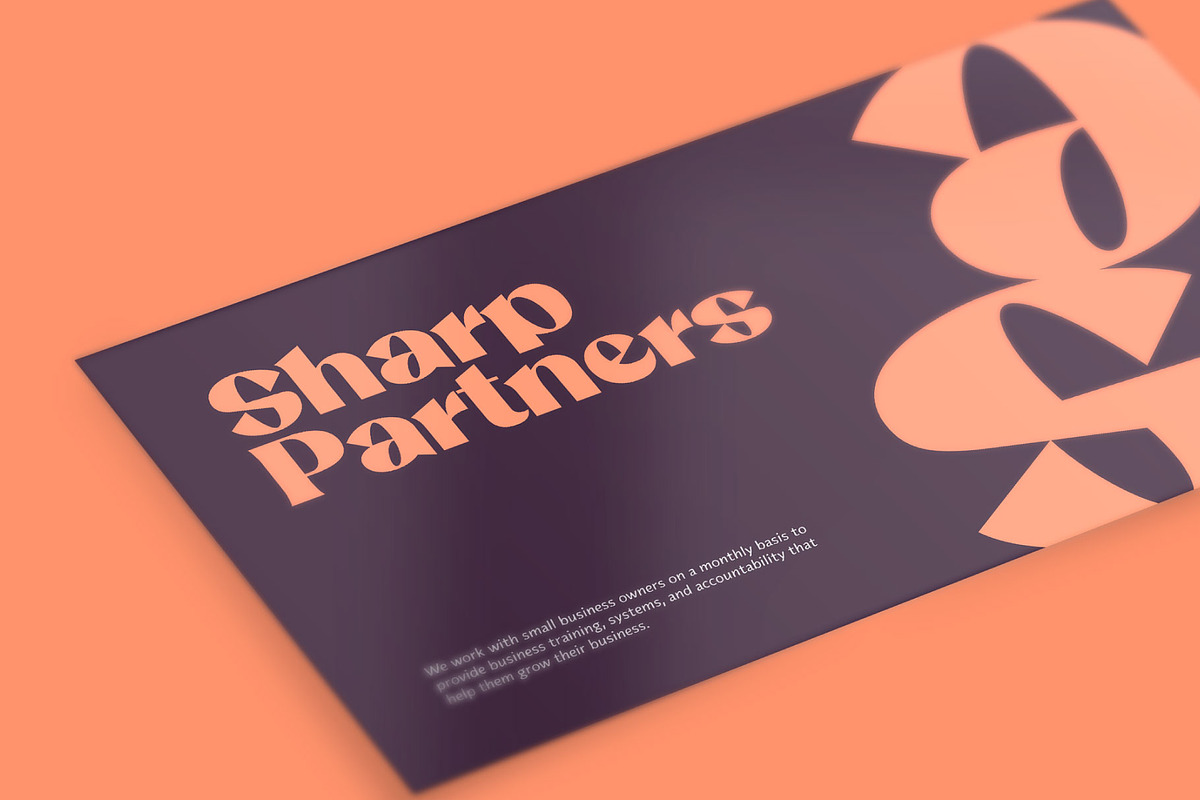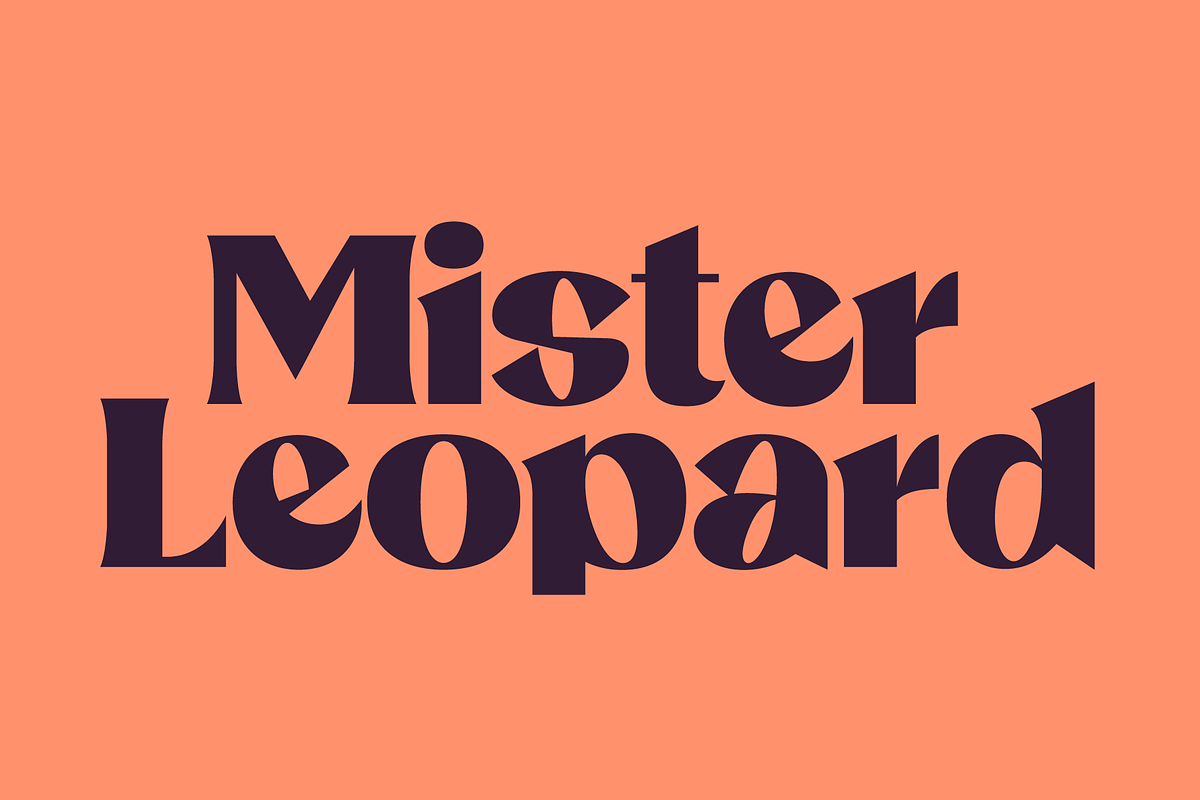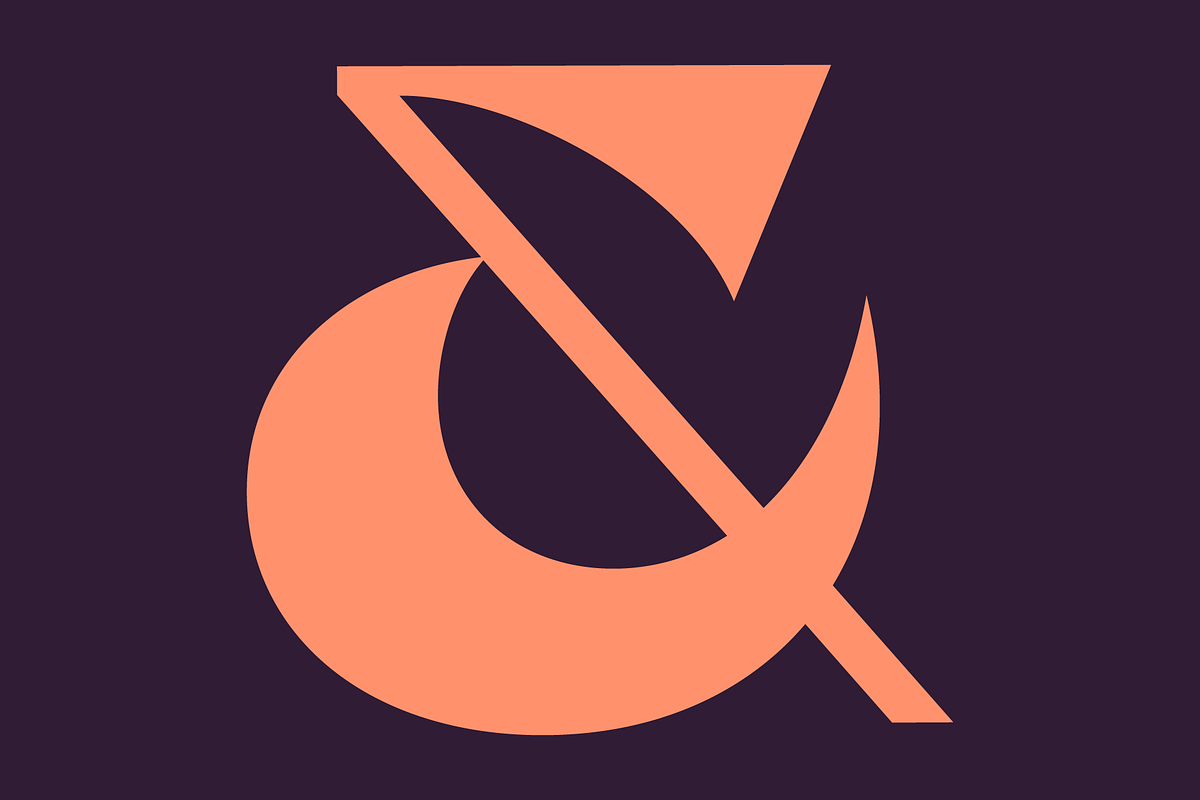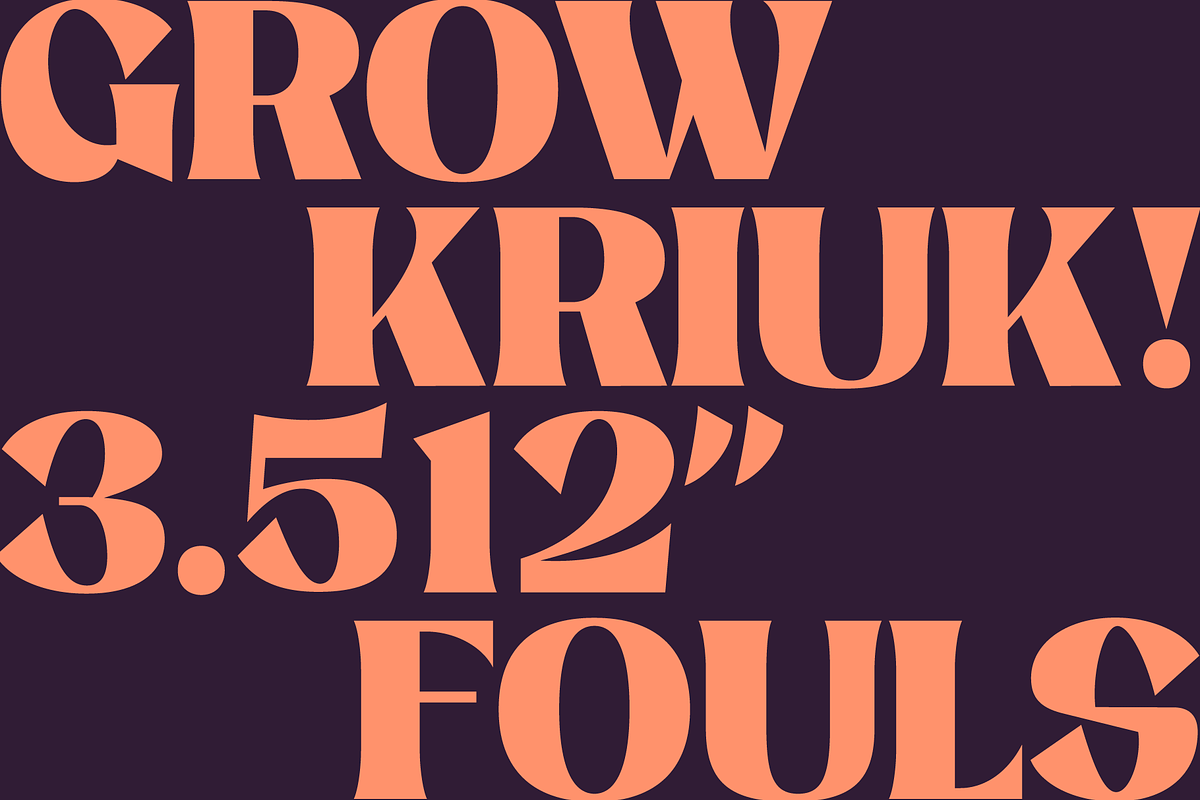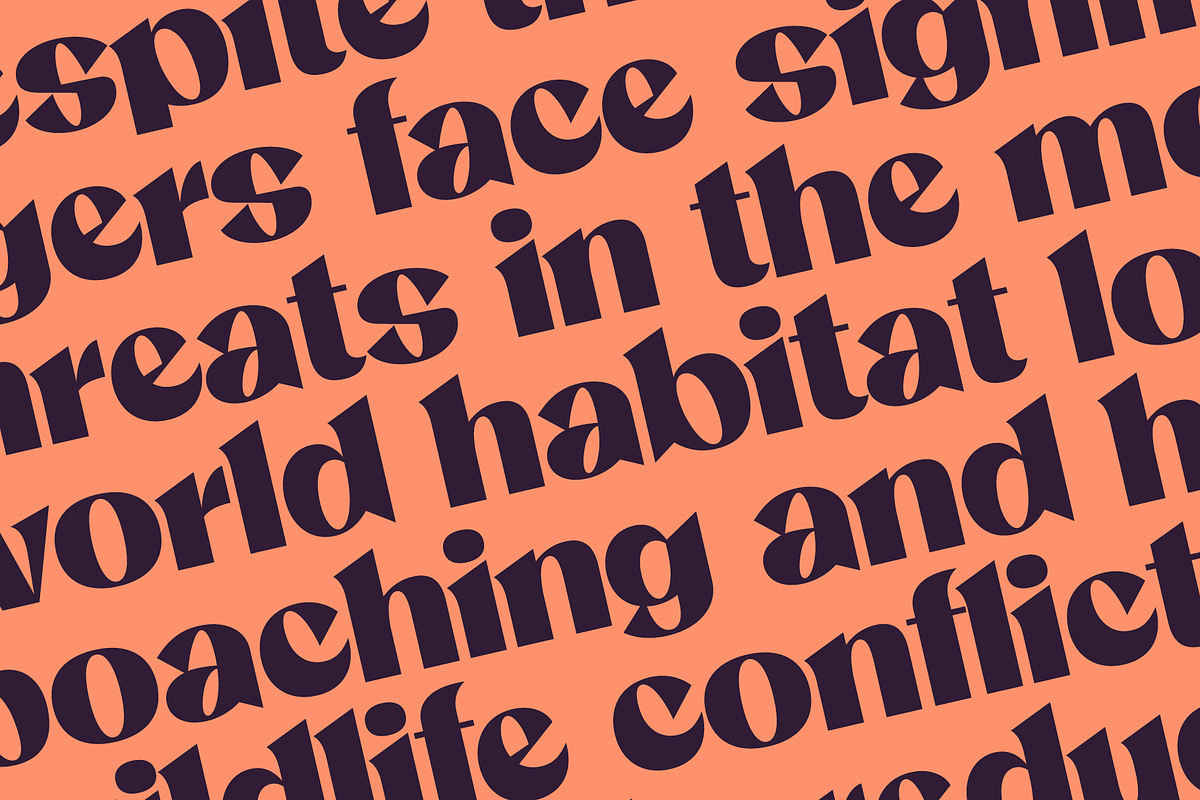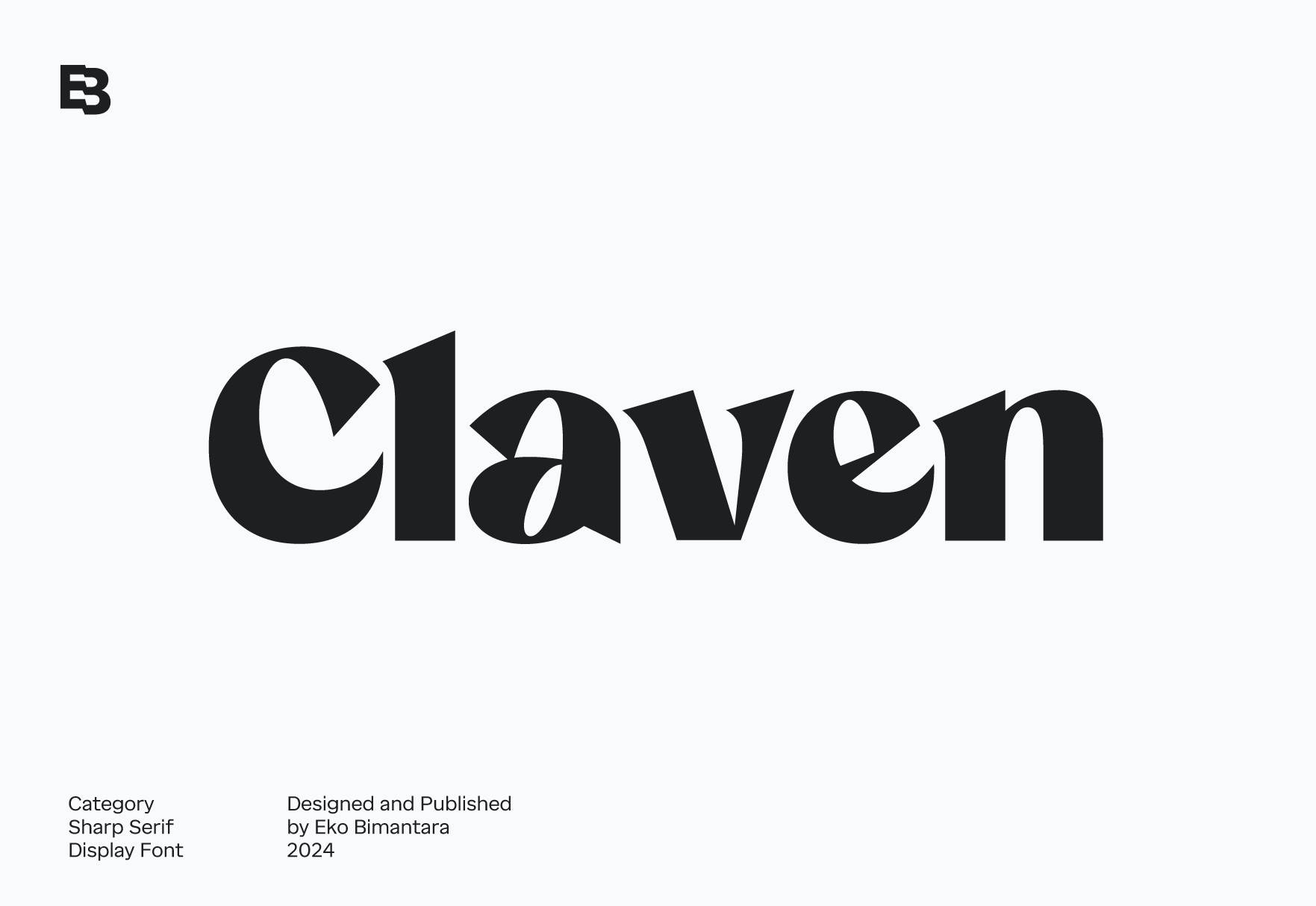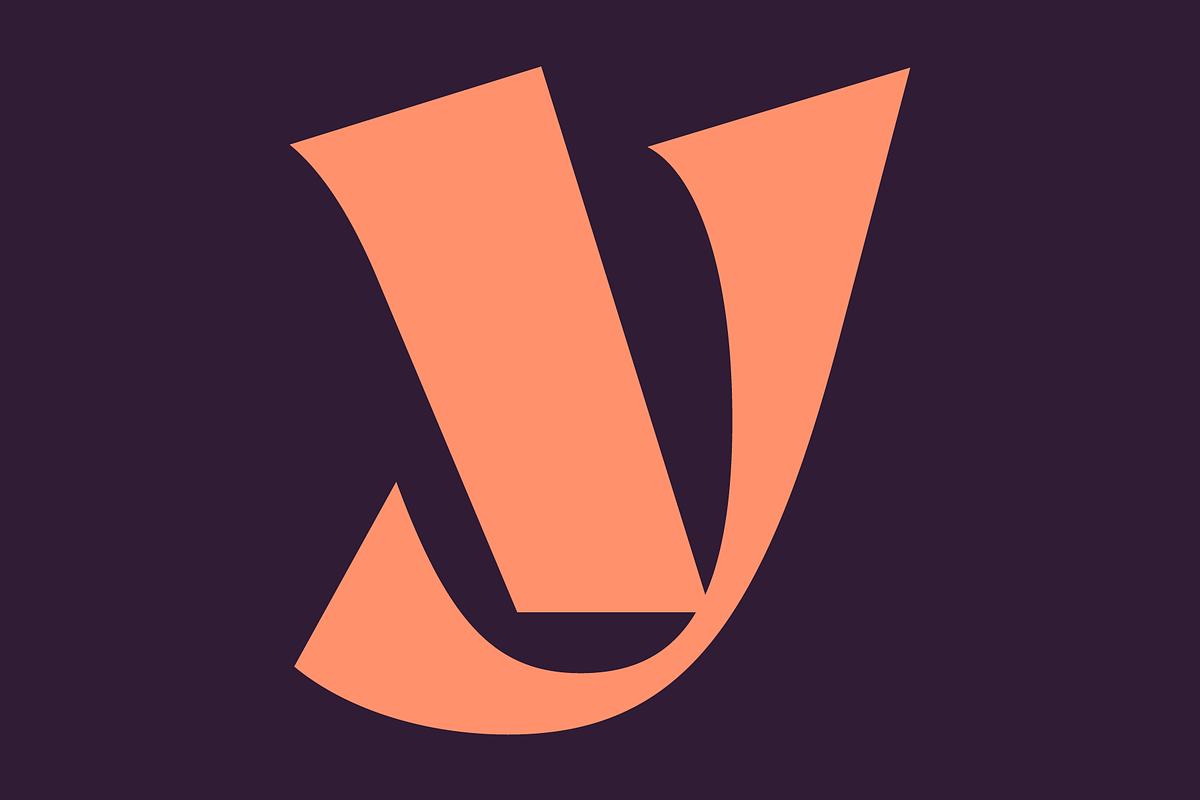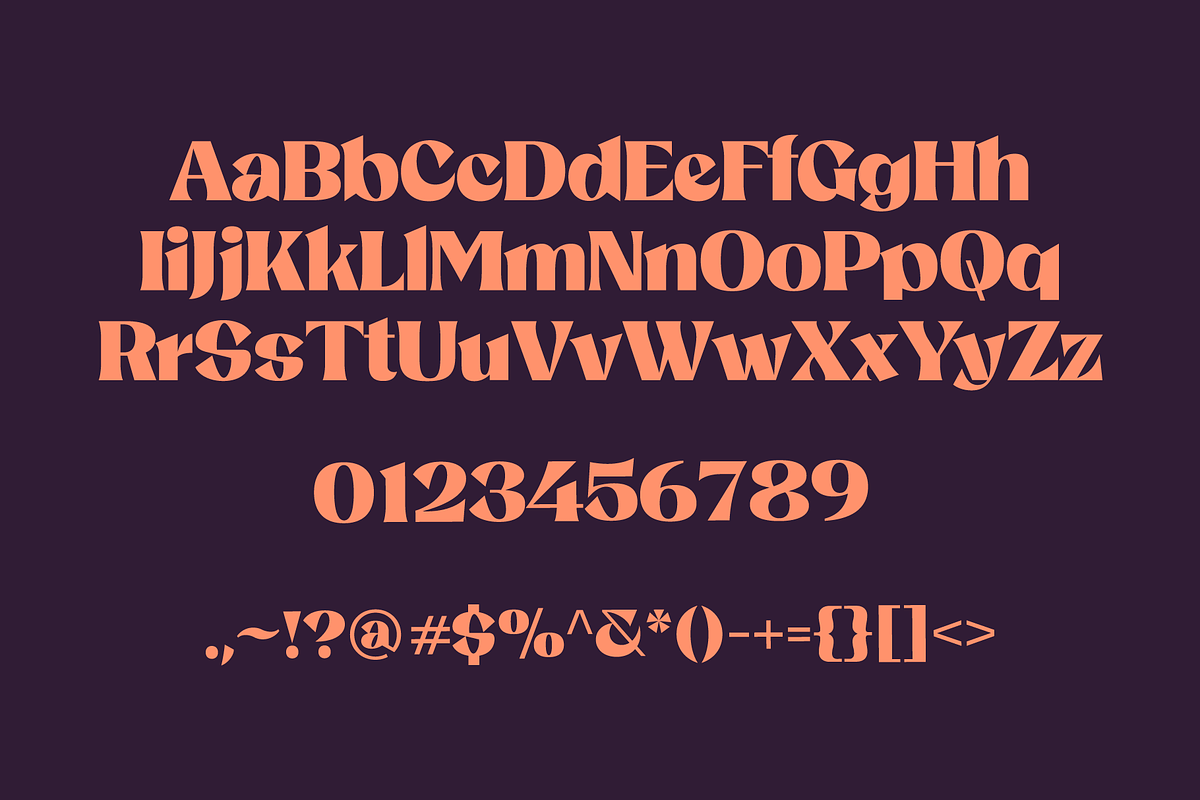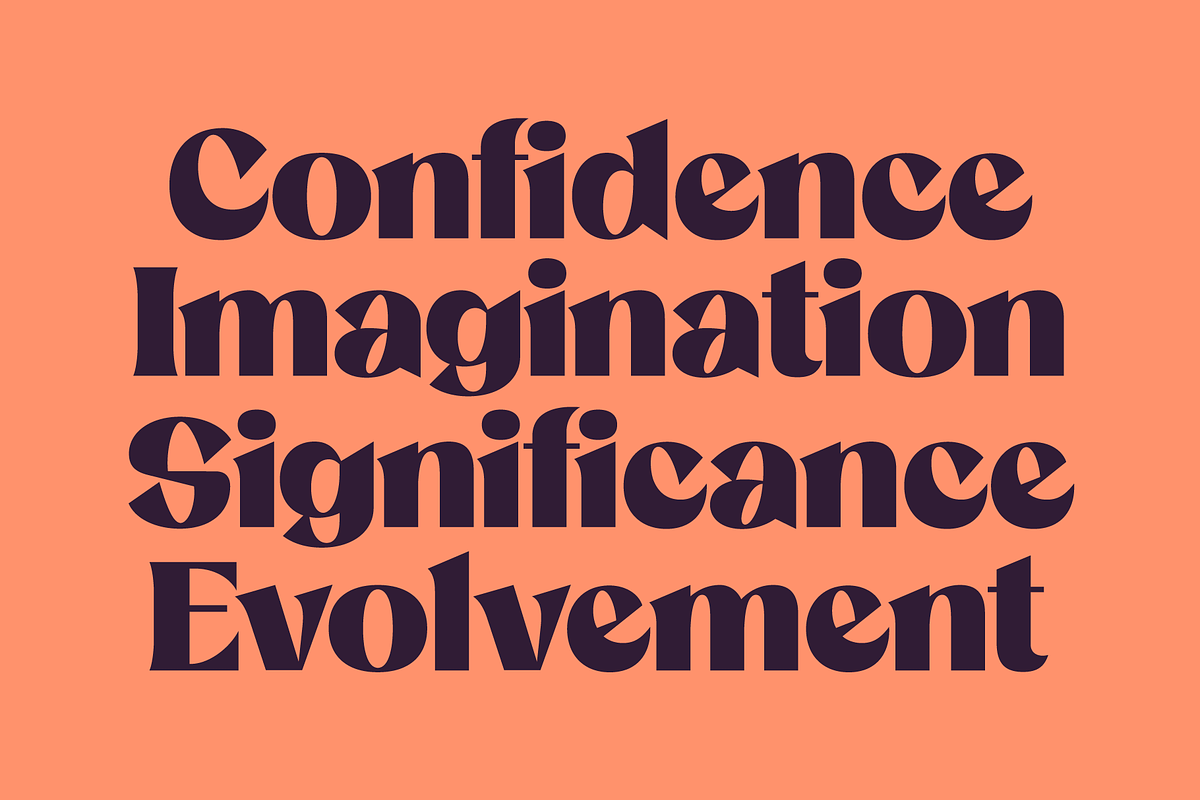
Claven; Sharp Serif Display Font
Claven is a bold sharp serif display font featuring distinctive flared serifs, a large x-height, and unique character design. Its strong and eye-catching style is perfect for modern and classic-themed projects alike. Claven excels in branding, titles, product packaging, posters, and headers, making it ideal for large-size displays and creative layouts. Whether used for websites, brand identities, or a broad range of graphic design purposes, Claven adds a sharp, impactful presence to any design.